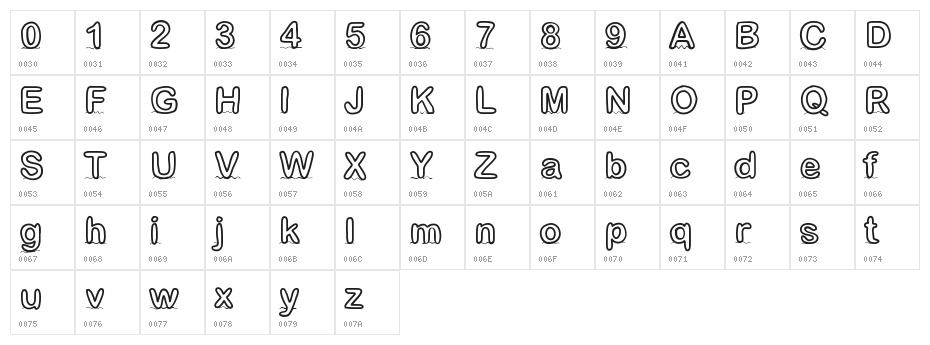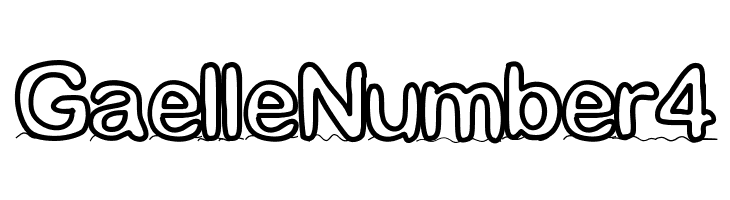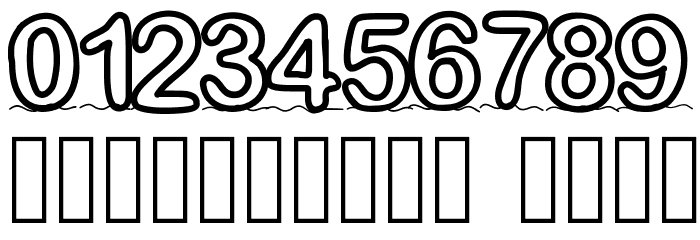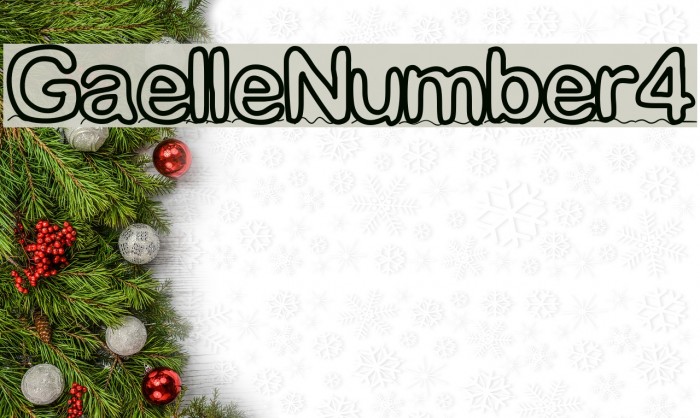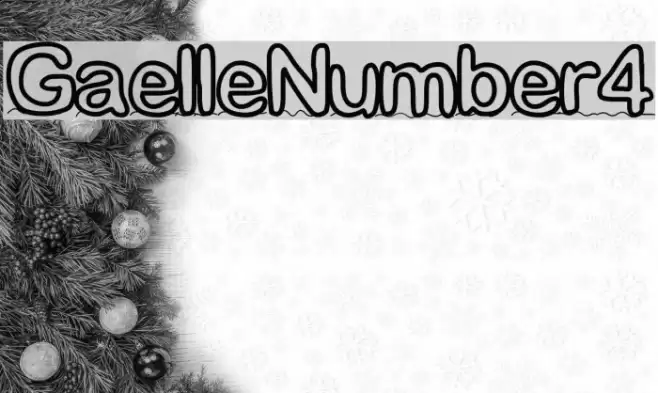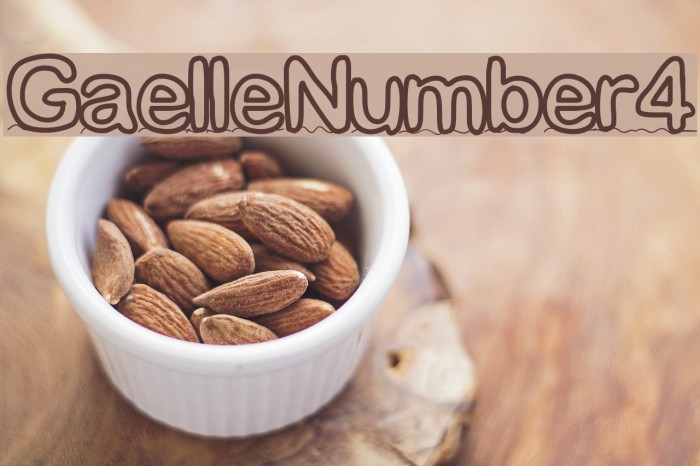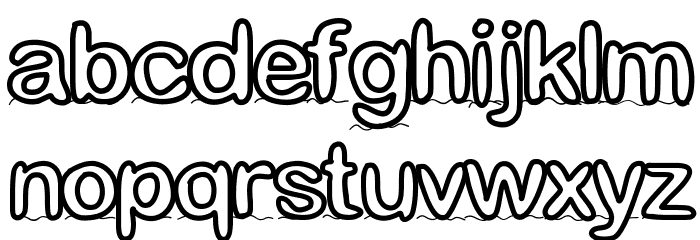
GaelleNumber4 Font
GaelleNumber4 Description
This font features a bold, playful style with a thick outline that gives each character a bubble-like appearance. The letters are rounded and smooth, creating a friendly and approachable look. The uppercase and lowercase letters maintain a consistent style, with the lowercase letters slightly smaller in size but equally bold. The numbers follow the same design principles, ensuring uniformity across all characters. Special characters are included, matching the overall aesthetic. This font is ideal for projects that require a fun and engaging visual element.
| Overall Style | Playful, Fun |
| Proposed Projects | Perfect for children's books, playful branding, posters, and party invitations. |